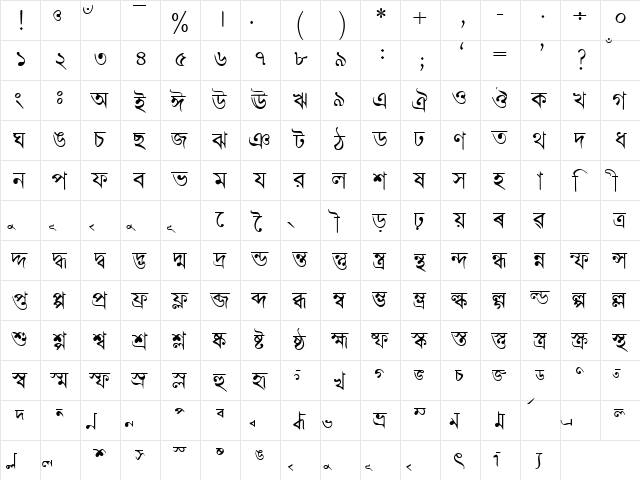
BengaliDhakaSSK Regular
Design Context for BengaliDhakaSSK Typeface
BengaliDhakaSSK offers clean, dependable letterforms without strong stylistic allegiance, making it a practical choice for designers who need flexibility.